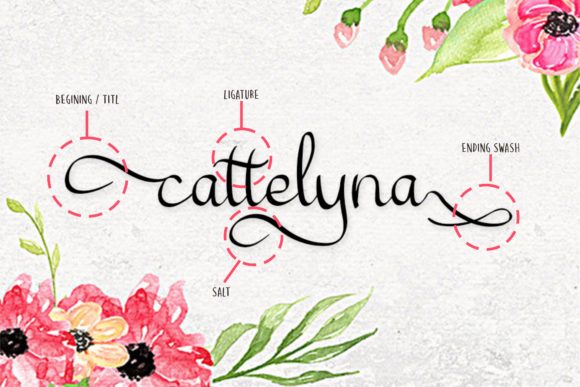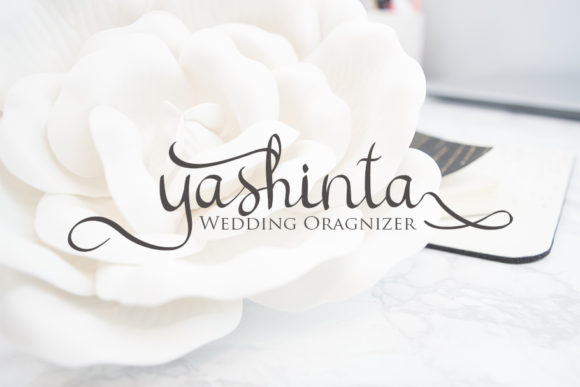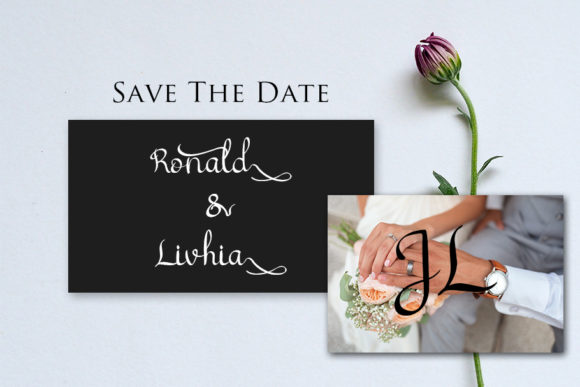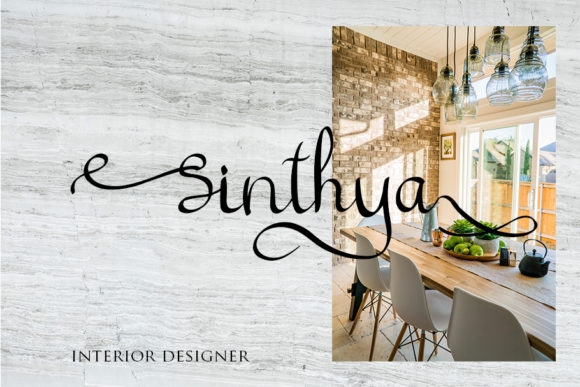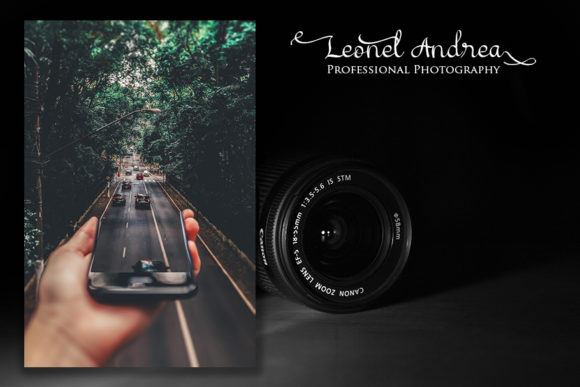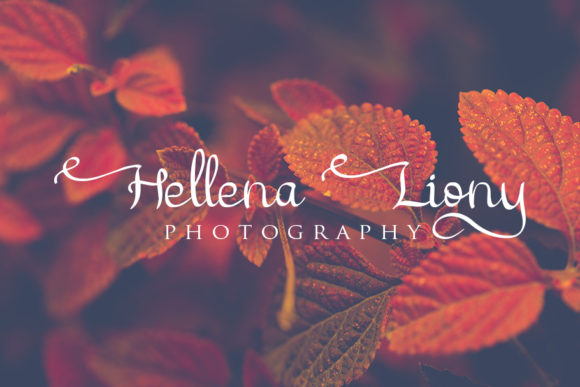
Introduction to Cattelyna Font
The cattelyna is a modern beautiful typeface.
It’s perfect for feminine, elegant, and luxurious designs It has a fresh and modern look which can be used for greeting cards, branding materials, quotes, posters, and much more.
Cattelyna Font offers exceptional quality and versatility, making it a valuable addition to your design toolkit. Whether you’re creating for personal projects or commercial use, Cattelyna Font delivers professional results.